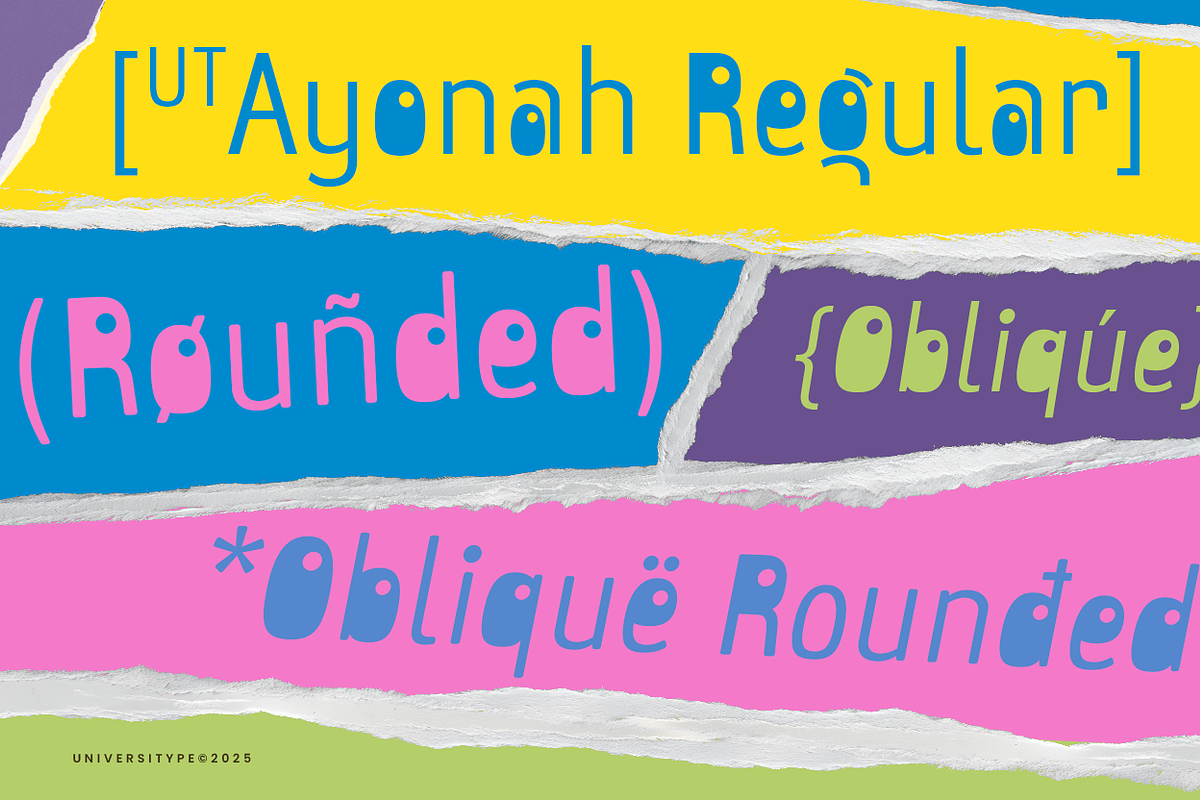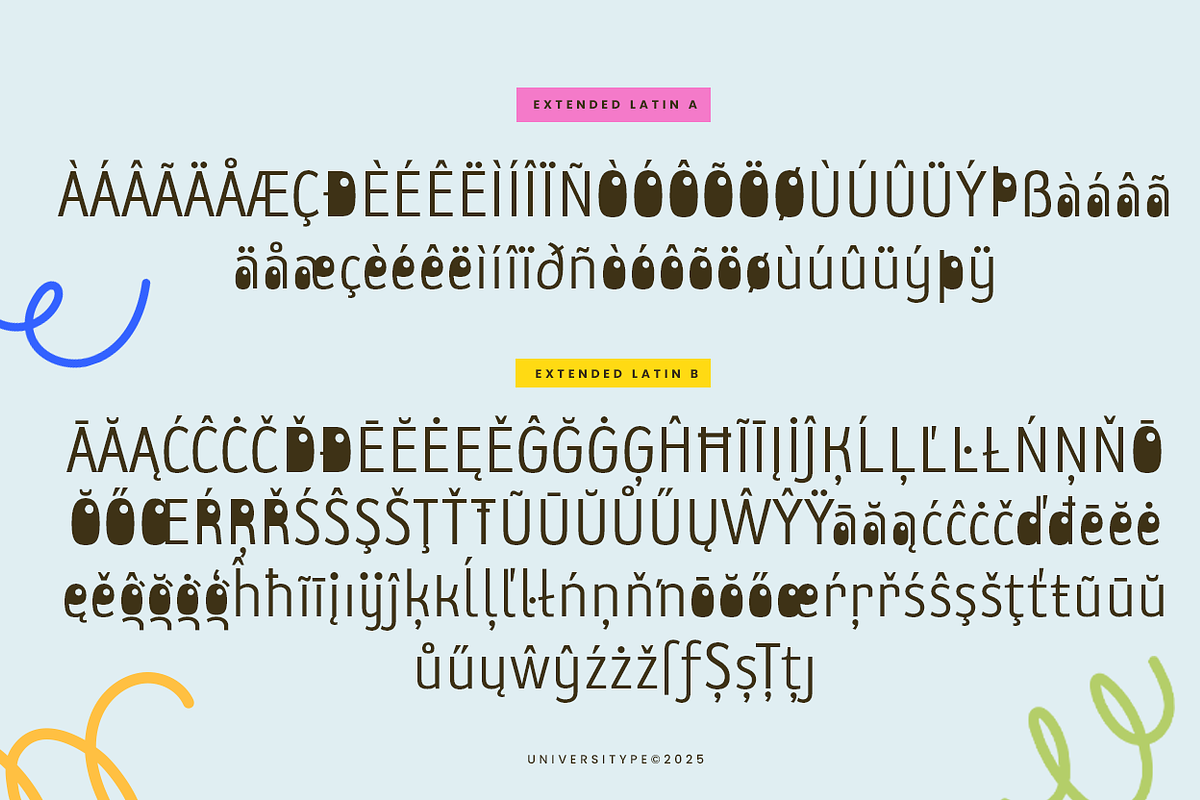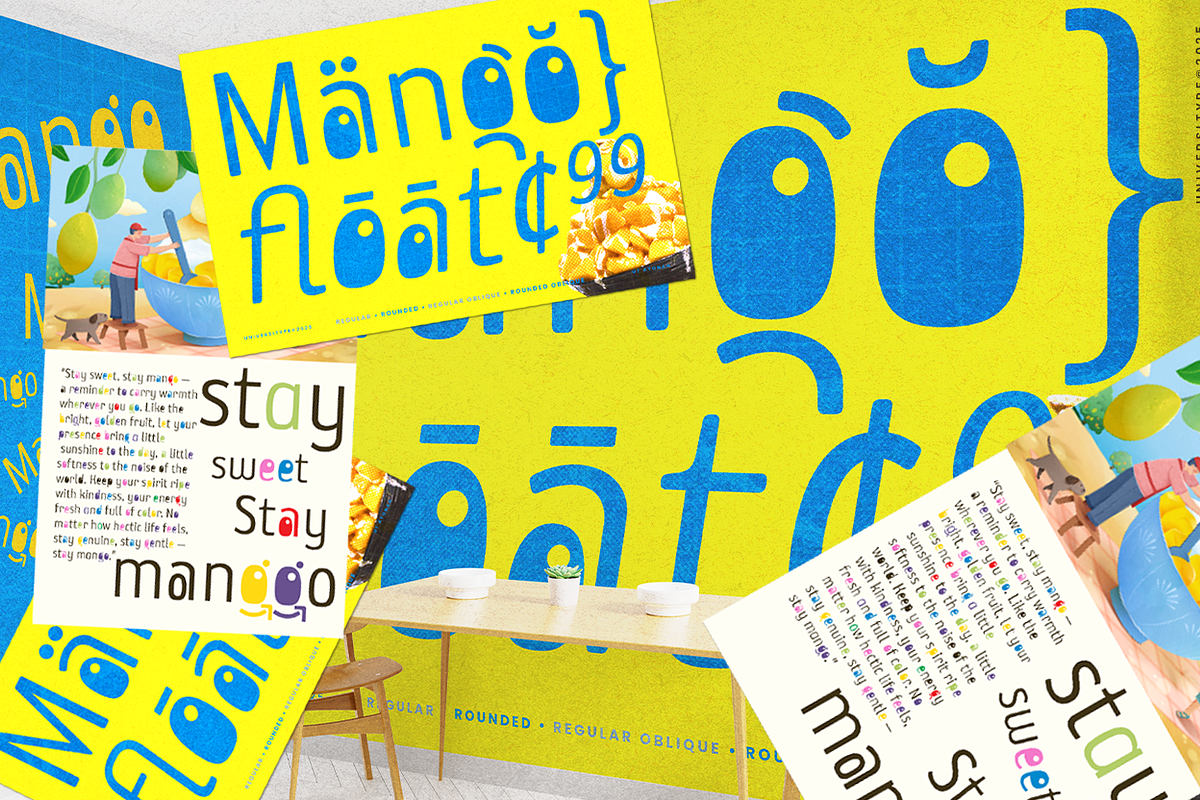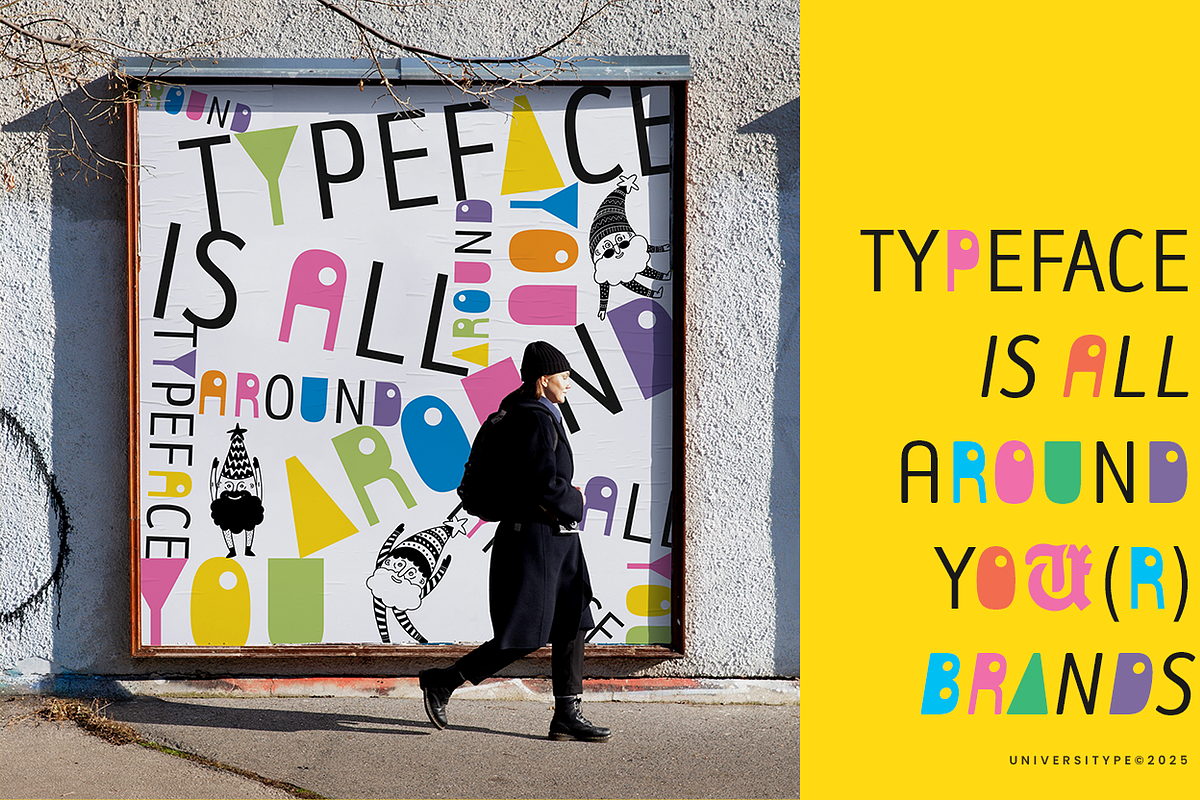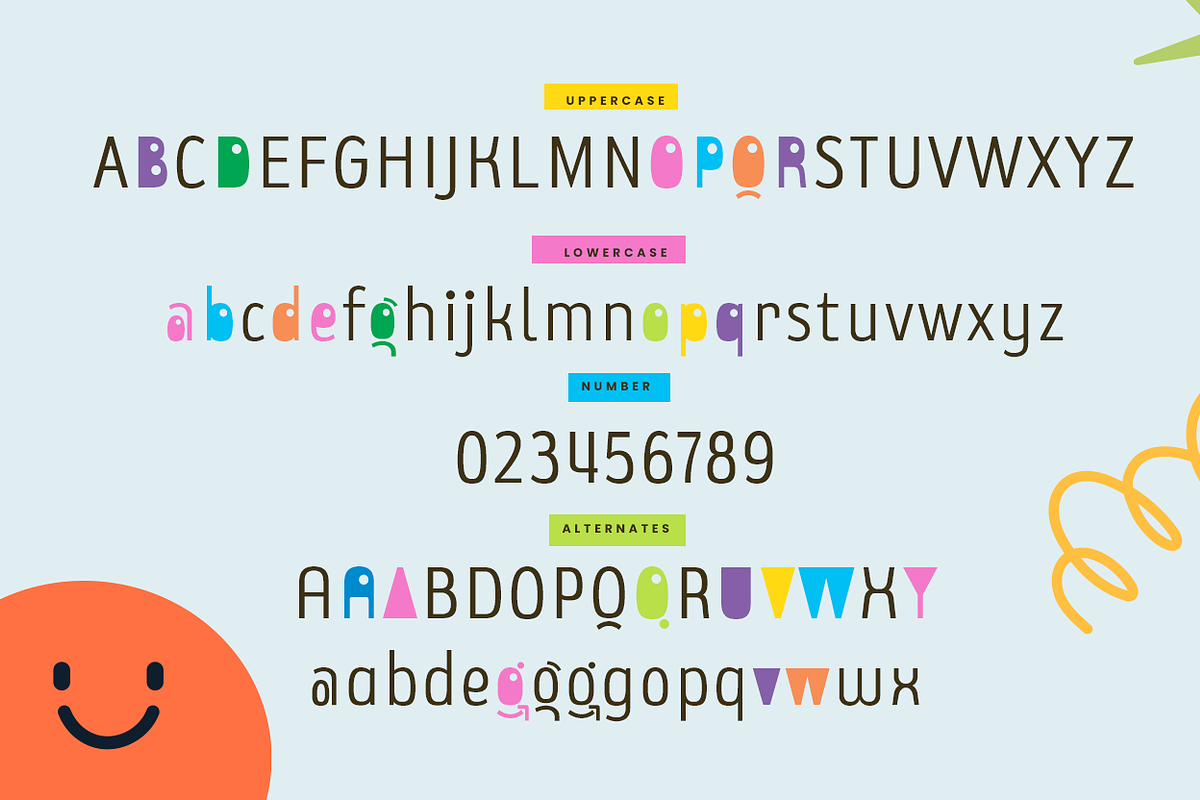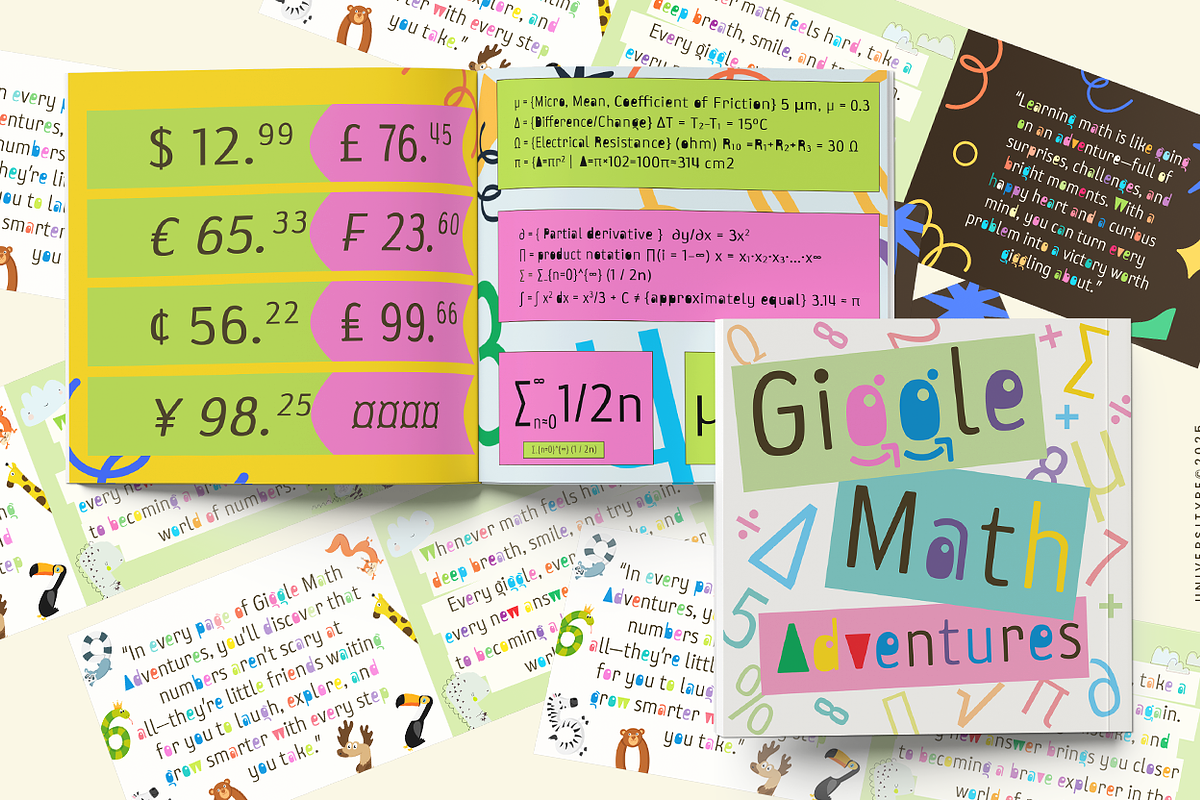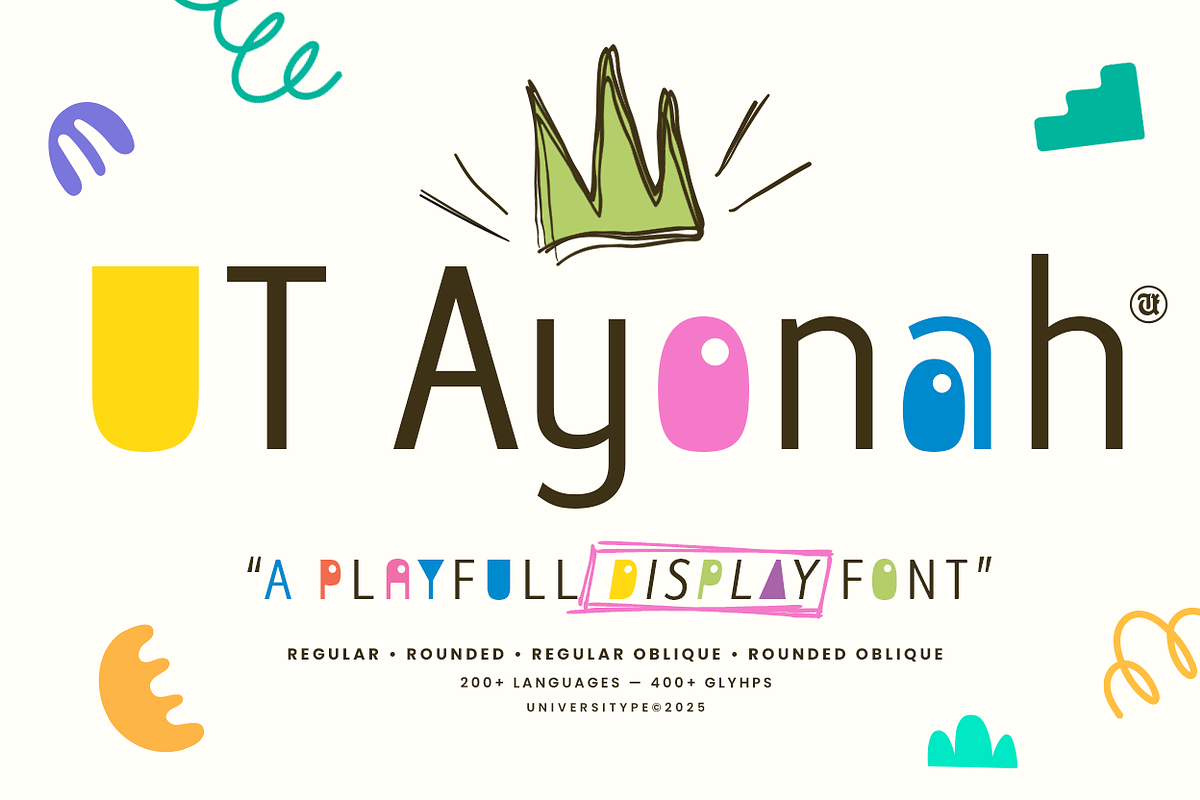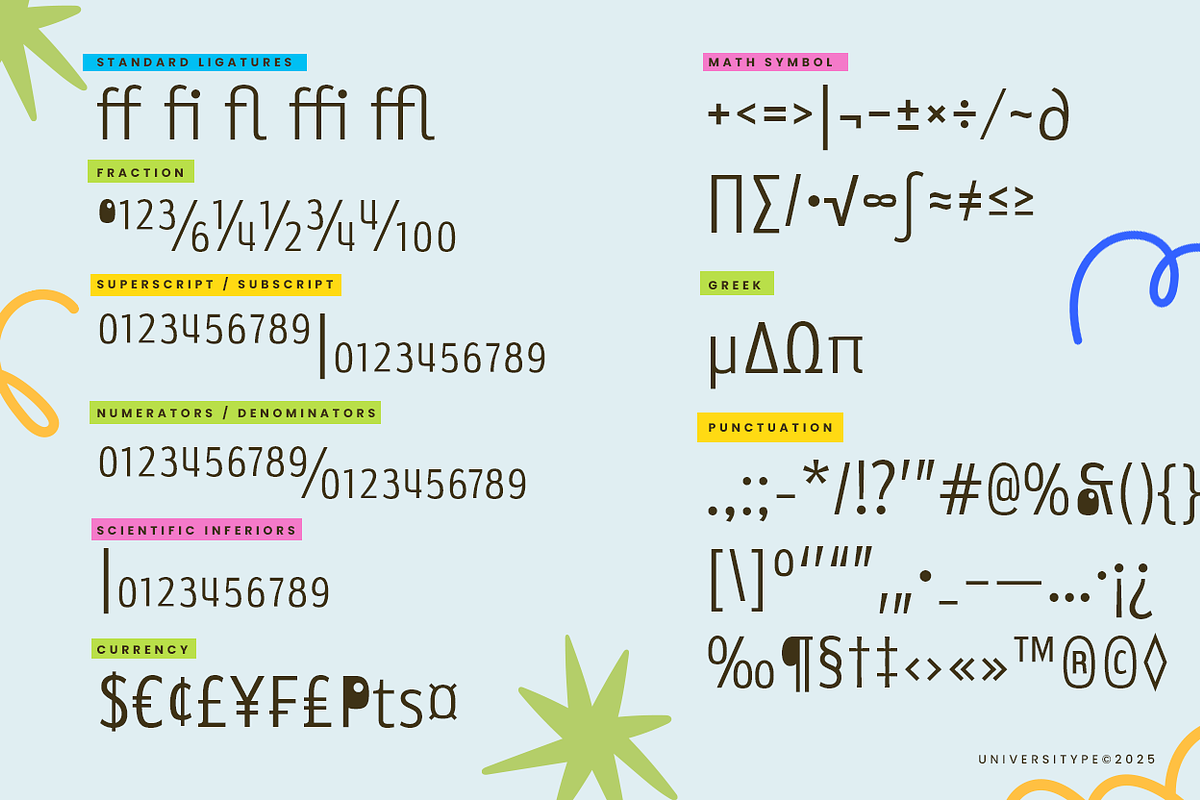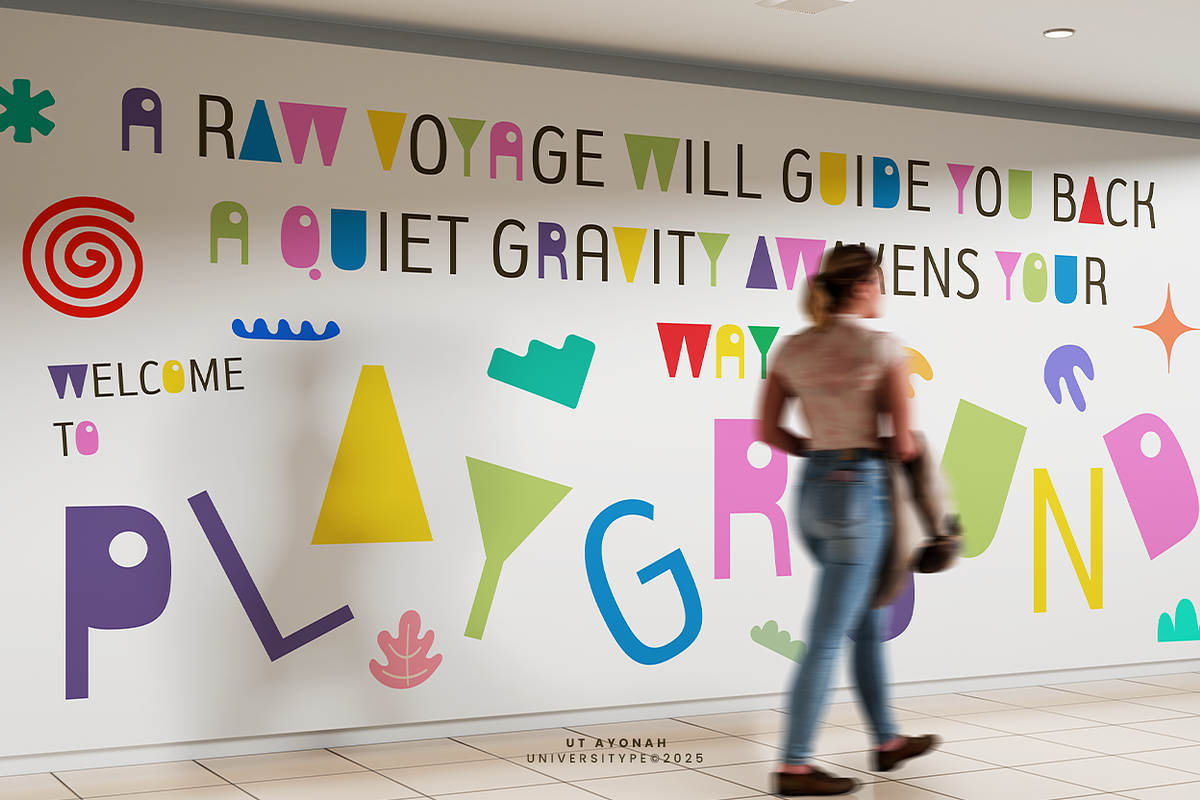
UT Ayonah - A Playful Display Font
UT Ayonah – Playful Display Typeface
UT Ayonah is a friendly display typeface with soft geometry and playful character details. Designed to feel warm and approachable, it works great for creative projects that need personality without losing clarity.
With four matching styles, UT Ayonah gives you flexibility while keeping a consistent visual tone across layouts.
- 4 font styles: Regular, Rounded, Oblique, Oblique Rounded
- 300+ glyphs
- Multilingual Latin support
Best For
- Branding and logos
- Posters and flyers
- Packaging design
- Kids and family-oriented projects
- Social media graphics
- Website headers and UI accents
- Numerals & punctuation
- Well-balanced spacing for display use